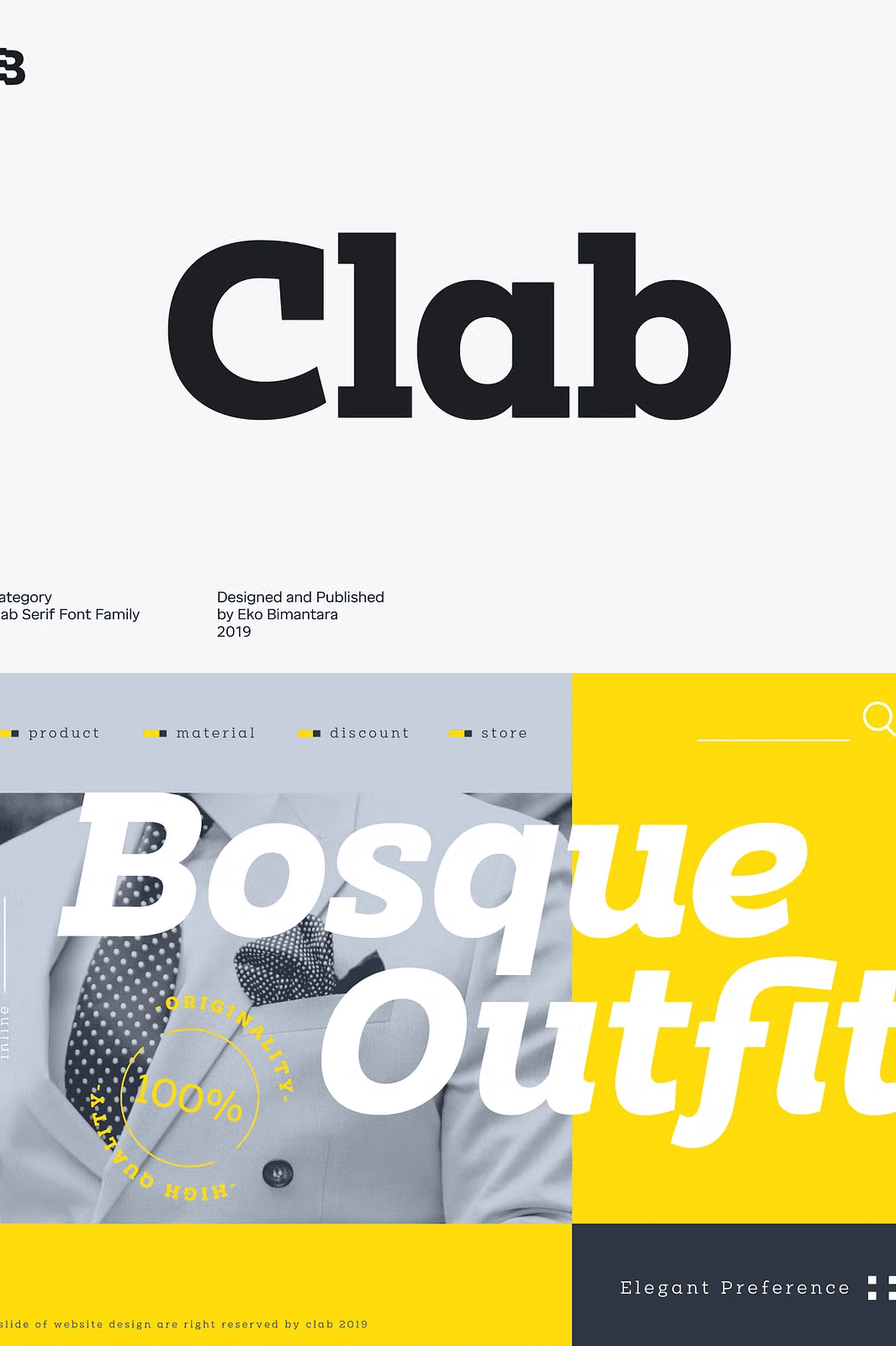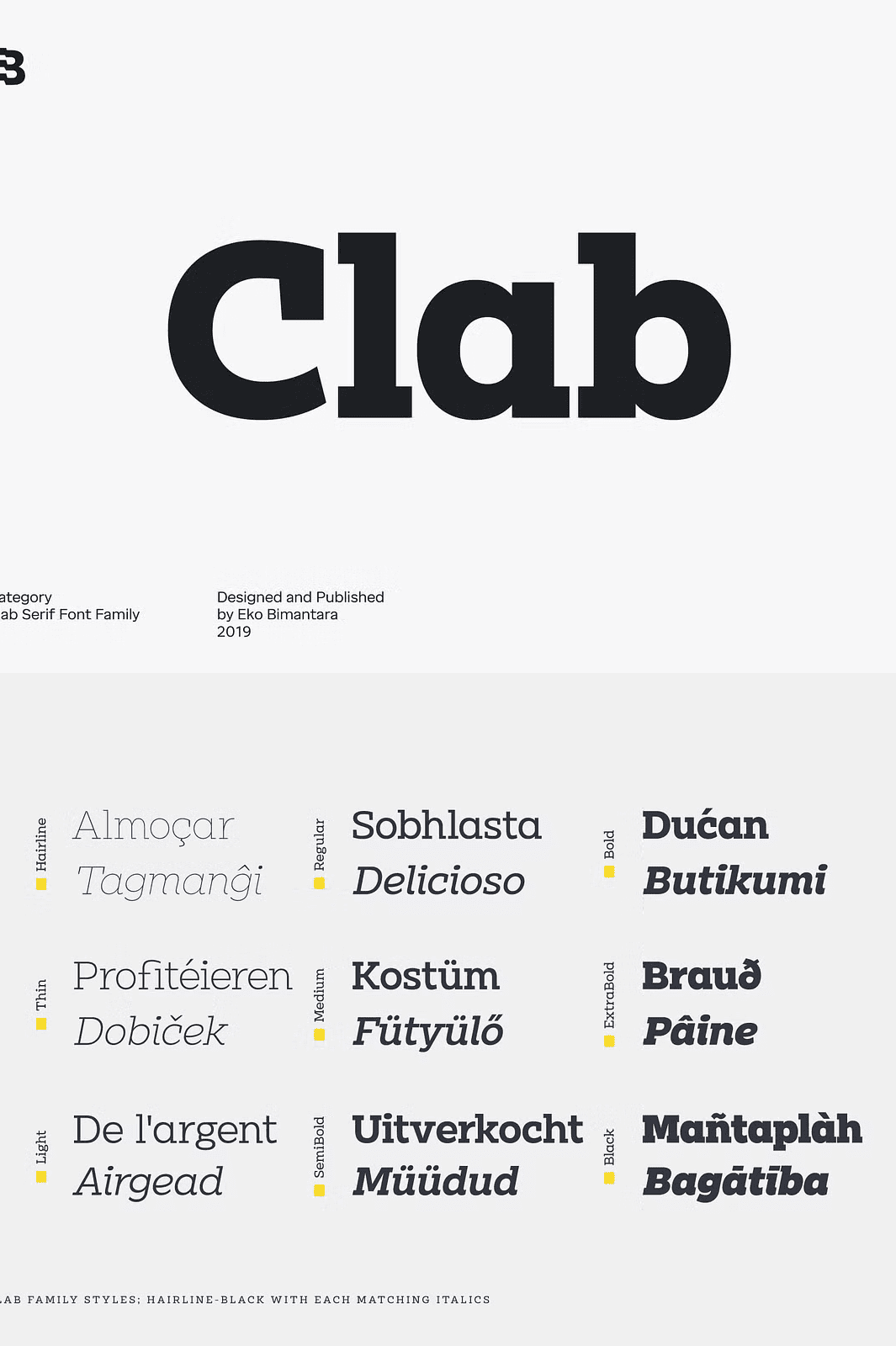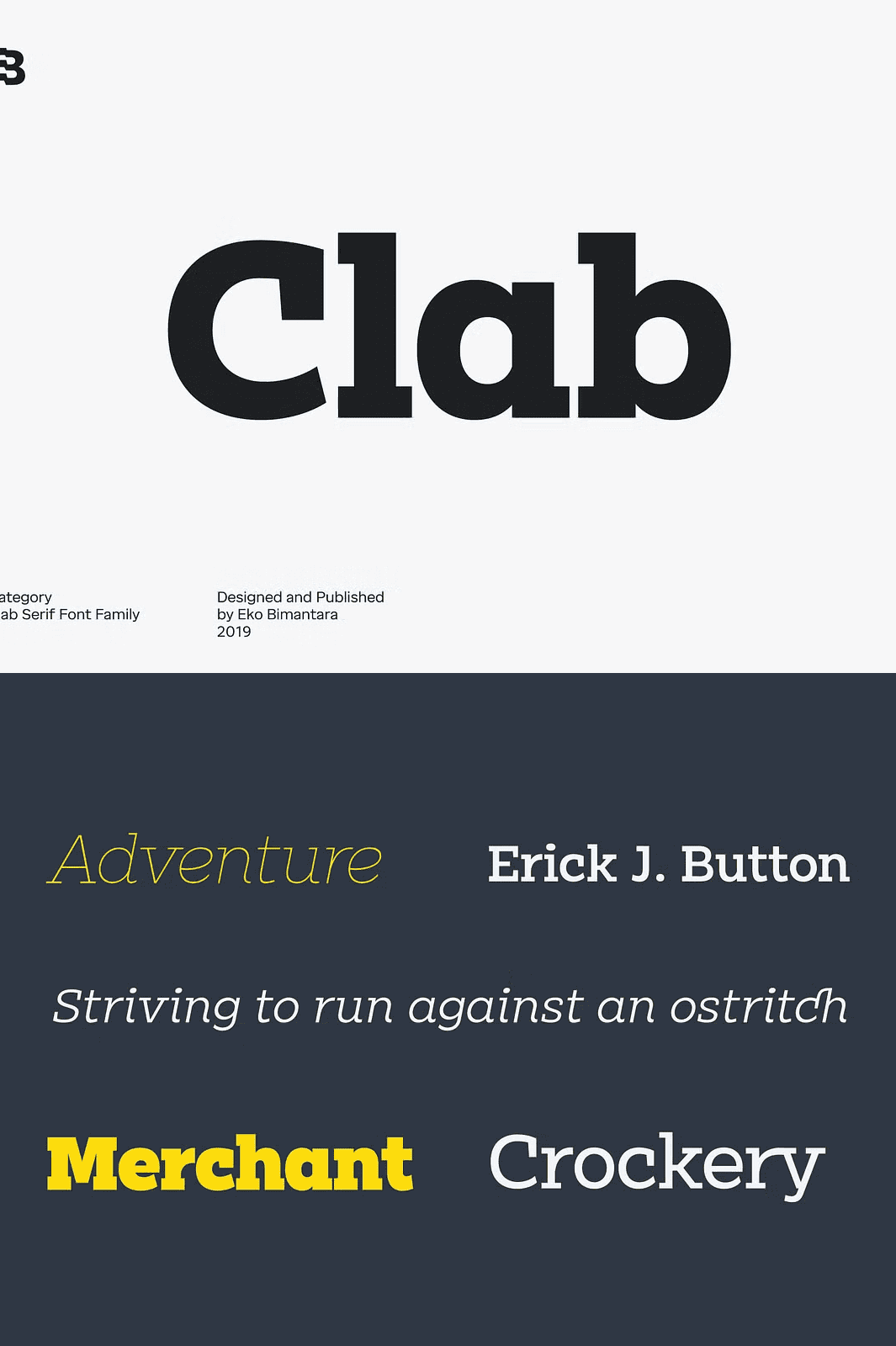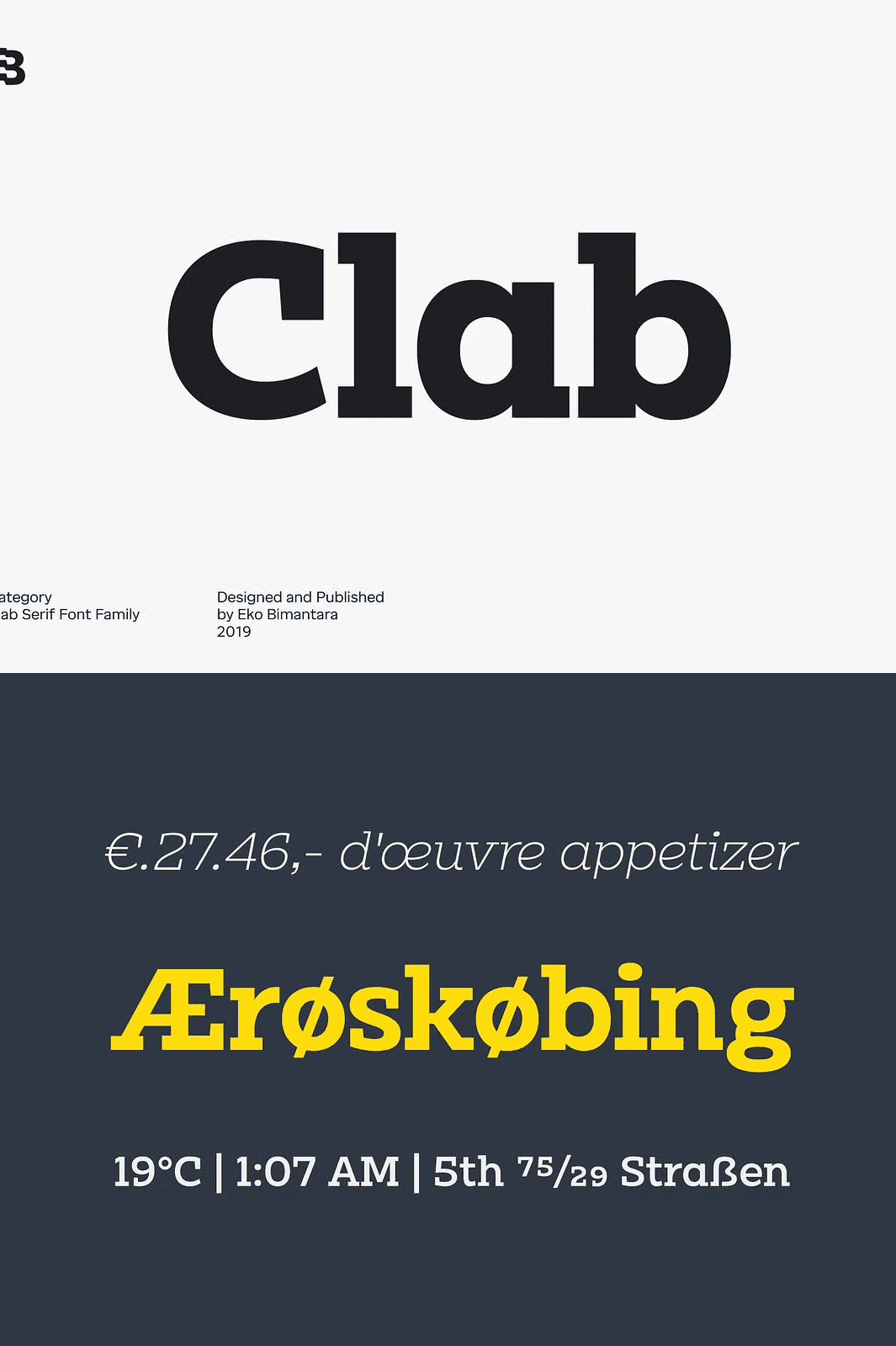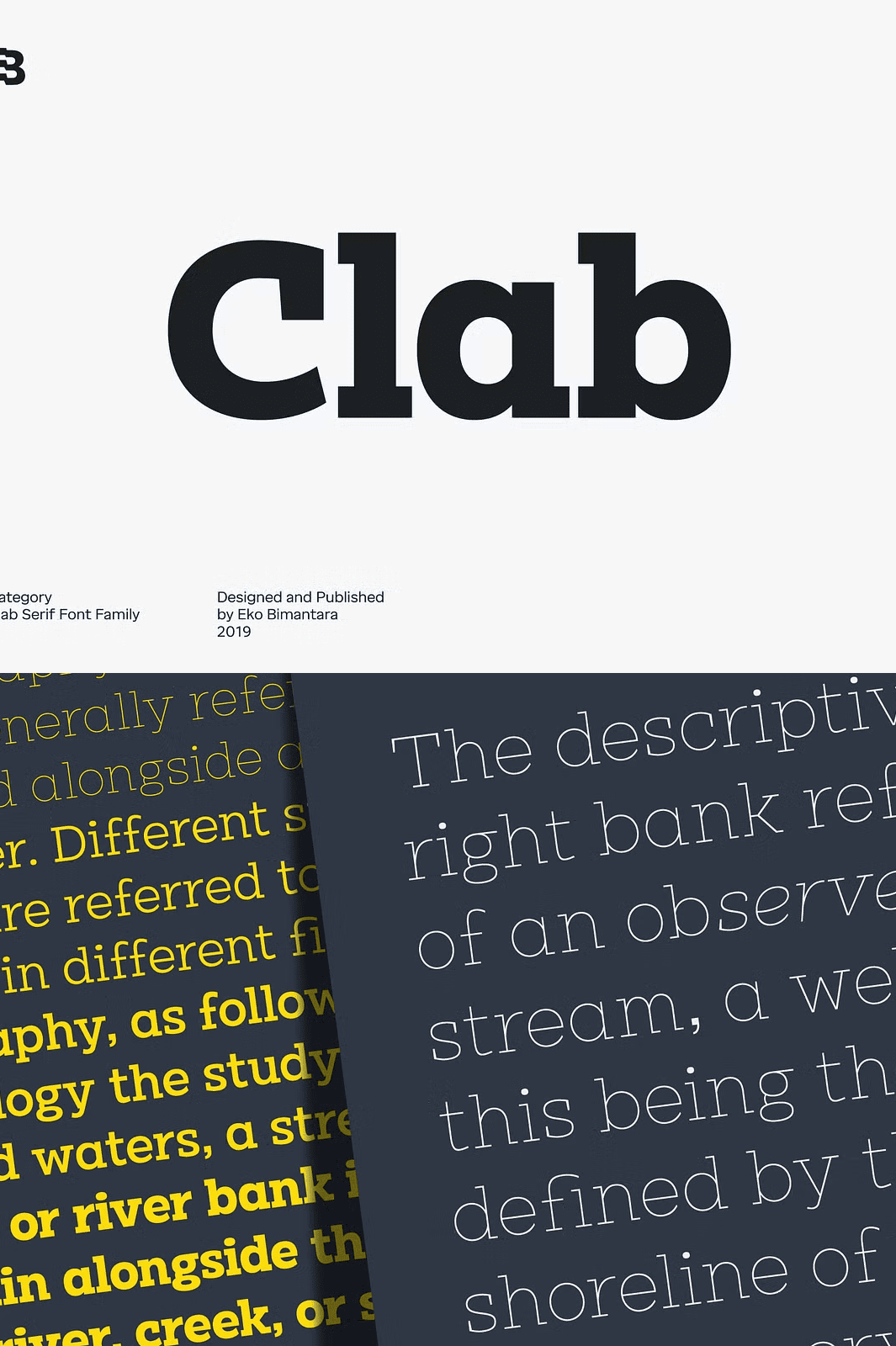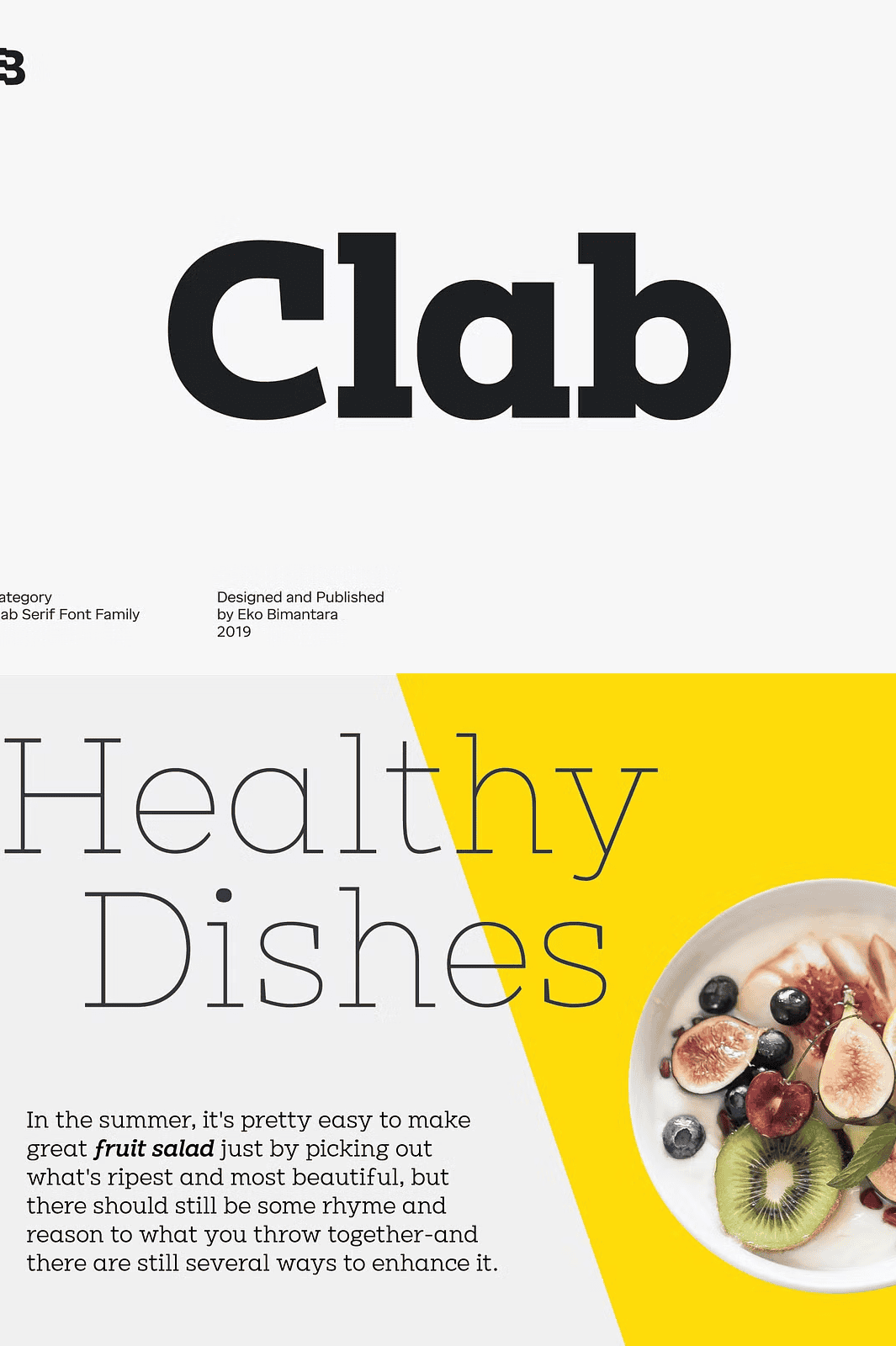
Command attention and define your brand identity with Clab—a powerhouse typeface engineered from the ground up for bold, professional branding. With a striking combination of chunky, confident strokes and fluid, expressive italics, Clab balances strength with sophistication. Its low-contrast design, short ascenders and descenders, and refined low cap forms create a modern yet timeless aesthetic that stands out in any context, from logos and packaging to editorial and digital campaigns.
Powerful Range of 9 Weights, Perfectly Matched Italics
Clab delivers unmatched versatility with an expansive family of **9 distinct weights**, spanning from delicate **Hairline** to heavy **Black**—each one meticulously crafted to maintain visual harmony and proportional balance. Every regular weight includes a complementary **italic style**, ensuring seamless pairing across all applications. Whether you’re building a minimalist brand tone with subtle detail or amplifying impact with a solid, black-letter headline, Clab adapts with precision and style.
Rich Glyph Set with Advanced OpenType Features
Designed for professional designers, Clab includes **over 400 glyphs**—comprehensive coverage for multilingual projects and sophisticated typography. The font supports essential OpenType features such as:
• Standard and discretionary ligatures—elevate readability and elegance in extended text.
• Fraction support—perfect for data-rich infographics, packaging, or editorial layouts.
• Alternative character sets—add stylistic variety and visual interest.
• Case-sensitive forms and stylistic alternates—give your design finer control and a unique character.
These features empower you to go beyond basic lettering and create typographic solutions that are both sophisticated and distinctive.
Engineered for Professional Design Workflows
Use Clab to craft:
• Brand logos and identity systems that communicate strength, clarity, and modernity.
• Packaging and product labels that pop on shelves with confident lettering.
• Event and campaign posters with dynamic typography that captures attention.
• Editorial features and magazine layouts where typography leads the narrative.
• Digital interfaces and web branding that demand both readability and visual power.